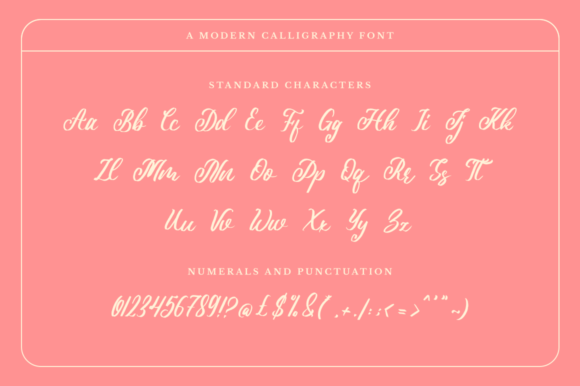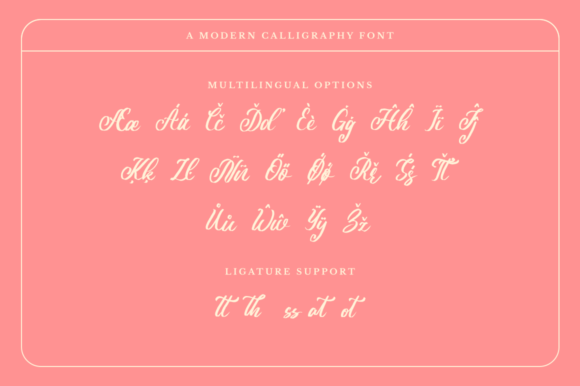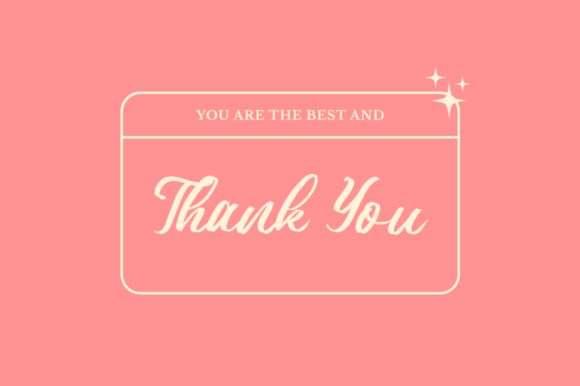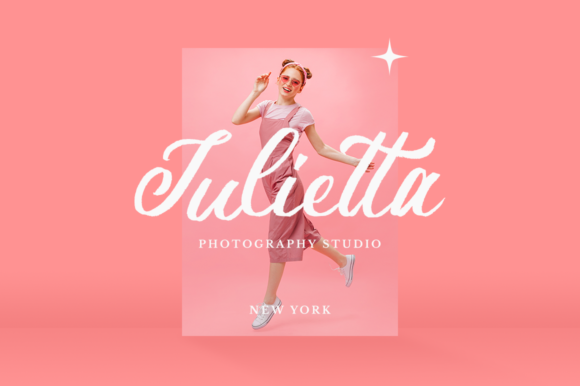
About Alovetha Font
Alovetha is a beautiful handwritten font that’s great for delivering any message with confidence, authenticity and charm. It will elevate a wide range of crafting ideas, from cards, to branding, labels and much more.